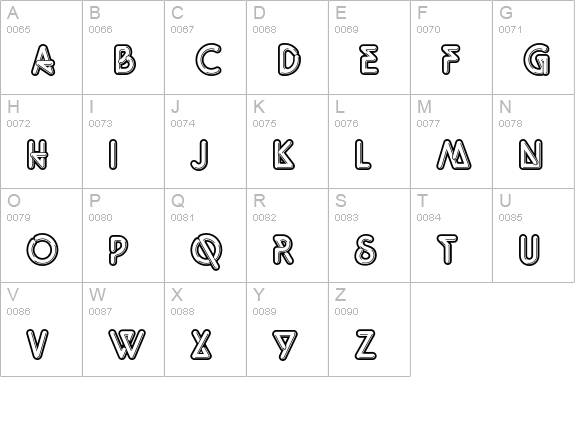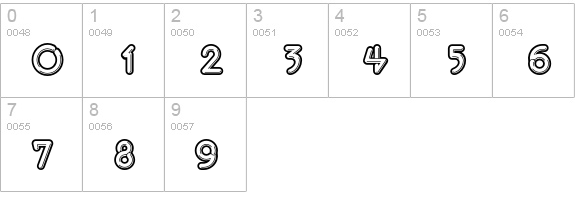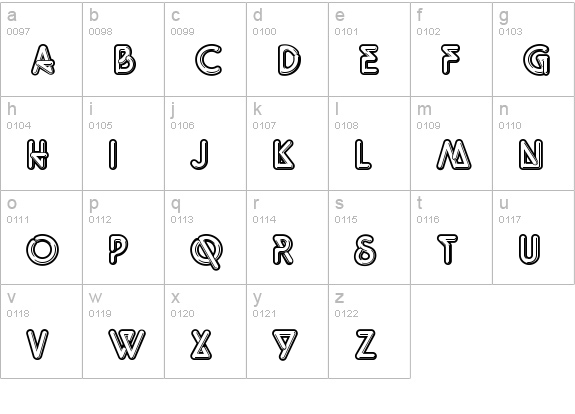
Client font is a modern and versatile typeface that is perfect for a wide range of design projects. With its clean lines and elegant curves, this font exudes professionalism and sophistication. The best part? It's completely free to use! You can easily download the Client font from FontsMarket.com and start incorporating it into your designs today. Whether you're working on branding, editorial design, or web graphics, the Client font is sure to elevate your work and make a lasting impression. Don't miss out on this fantastic opportunity to add a touch of class to your designs with the Client font - get it now for free at FontsMarket.com!